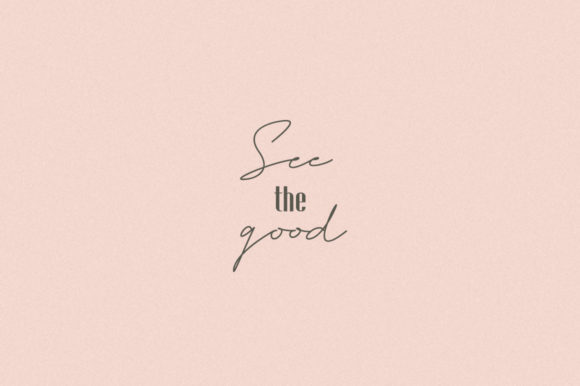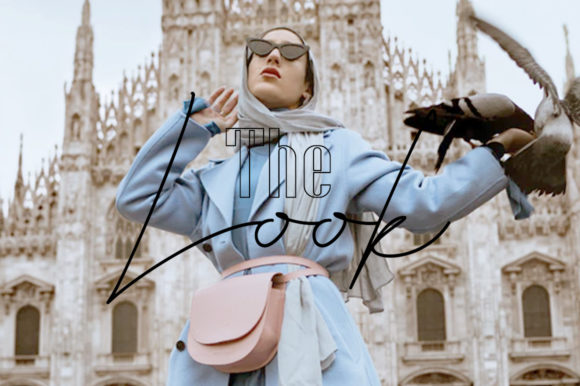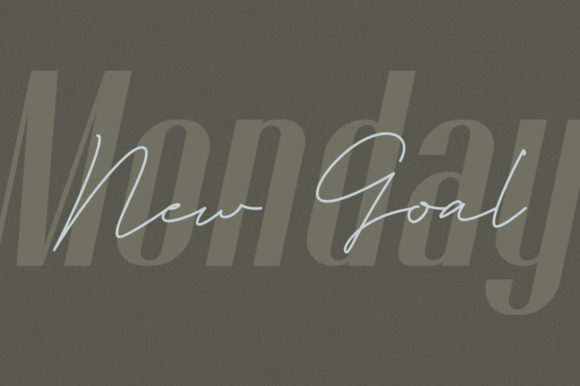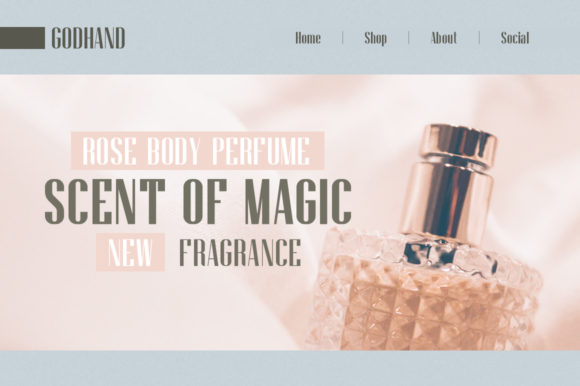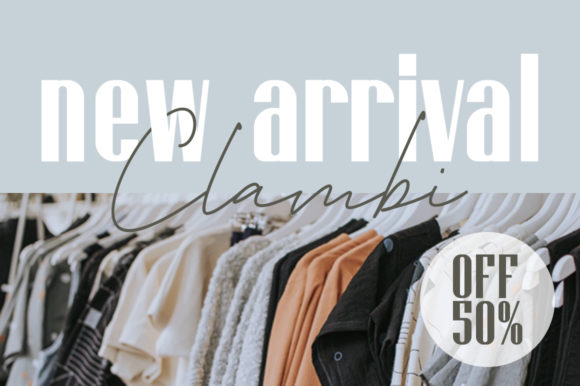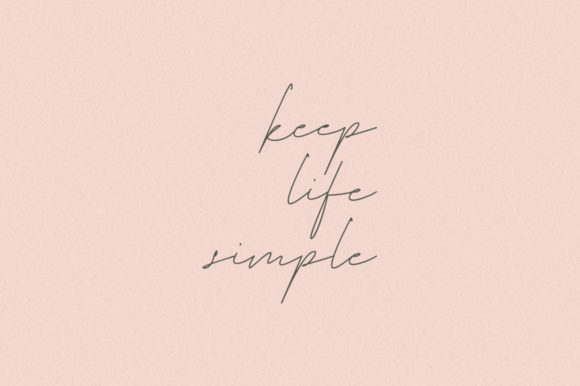
Introduction to Godhand Athens Family Font
As a designer, there’s nothing quite like the thrill of bringing a new project to life. The blank page stares back at you, begging for creativity and inspiration. But what if you had the perfect tool to unlock your imagination and bring your vision to the forefront? Enter the Godhand Athens Family Font, a stunning collection of two font families that will revolutionize your design process.
With the Godhand Athens Family Font, you’ll have the freedom to experiment and combine styles in an instant, creating unique designs that will elevate your high-quality logos, posters, wedding invitations, and blog posts. Whether you’re working on a creative project or simply looking for a fresh design resource, this font family has got you covered.
Key Features of Godhand Athens Family Font
- Includes a range of font styles and weights to suit various design needs.
- Includes a comprehensive character set, including uppercase and lowercase letters, numbers, and punctuation marks.
- Part of the Godhand Athens Family Font collection, offering a cohesive and stylish design solution.
Honest Review: Godhand Athens Family Font
As a designer, I’m always on the lookout for high-quality design resources that can elevate my creative projects. The Godhand Athens Family Font is one such resource that caught my attention. I was impressed by its versatility and flexibility, making it an excellent addition to my design toolkit.
- High-quality design with a unique aesthetic.
- Comes with a transparent background, making it easy to use on various backgrounds.
- Extensive character set, including Greek characters, which is a nice touch.
- Not all weights and styles are equally well-suited for certain design projects.
- Some users may find the font to be a bit too ornate for certain applications.
Overall, I’m impressed with the Godhand Athens Family Font. While it may not be perfect, its strengths far outweigh its weaknesses. With its unique aesthetic, extensive character set, and transparent background, it’s a valuable addition to any designer’s toolkit. Whether you’re working on a creative project or just looking for a high-quality font, the Godhand Athens Family Font is definitely worth checking out.
For the best results, use the Godhand Athens Family Font on a transparent background to achieve a clean and modern look. Experiment with different font sizes, colors, and combinations to add visual interest to your design.
The Godhand Athens Family Font is perfect for:
- Creating eye-catching social media graphics
- Designing professional-looking presentations and documents
- Adding a touch of elegance to your website or blog